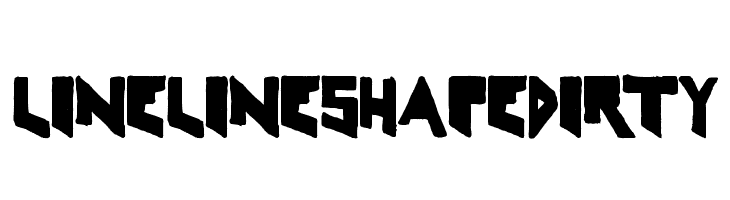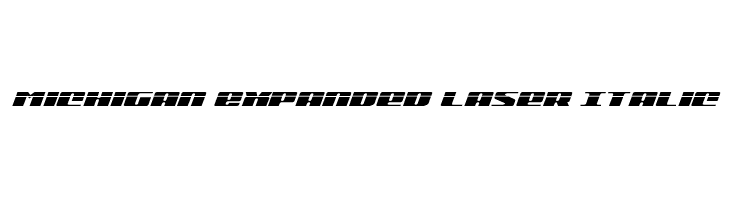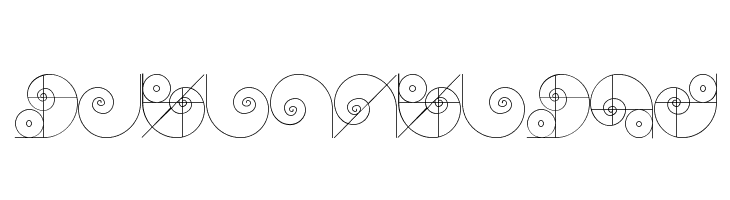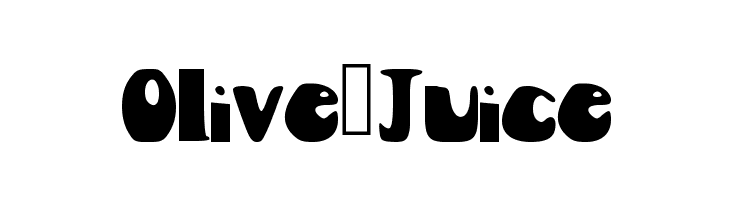
A decorative font inspired by nautilus shells, featuring intricate spiral and circular designs.
A bold, geometric font with an angular, modern design and italic slant.
A playful, hand-drawn font with wavy lines and a whimsical style.
A bold, slanted font with a modern and dynamic style.
A bold, distressed font with a vintage, rugged style.
A bold, italic font with sharp angles and a dynamic, modern style.
A playful font with characters inside pumpkin silhouettes, perfect for autumn themes.
A playful, balloon-like typeface with bold, rounded characters.
A bold, geometric font with decorative patterns and a modern, industrial style.